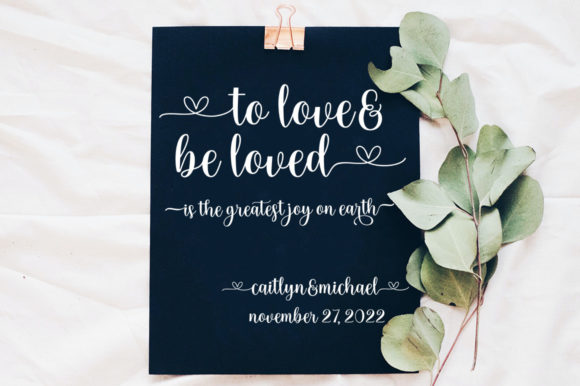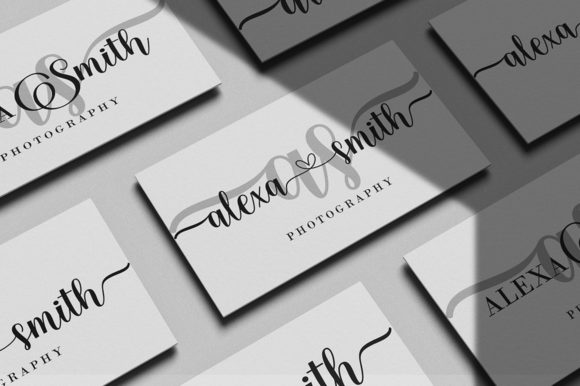
Magdala Script Font Font
db-ku.com - Script & Handwritten -- Magdala Script is a fresh and modern script font with an irregular baseline. It will add a luxury spark to any design project that you wish to create! This font is PUA encoded which means you can access all of the amazing glyphs and ligatures with ease!